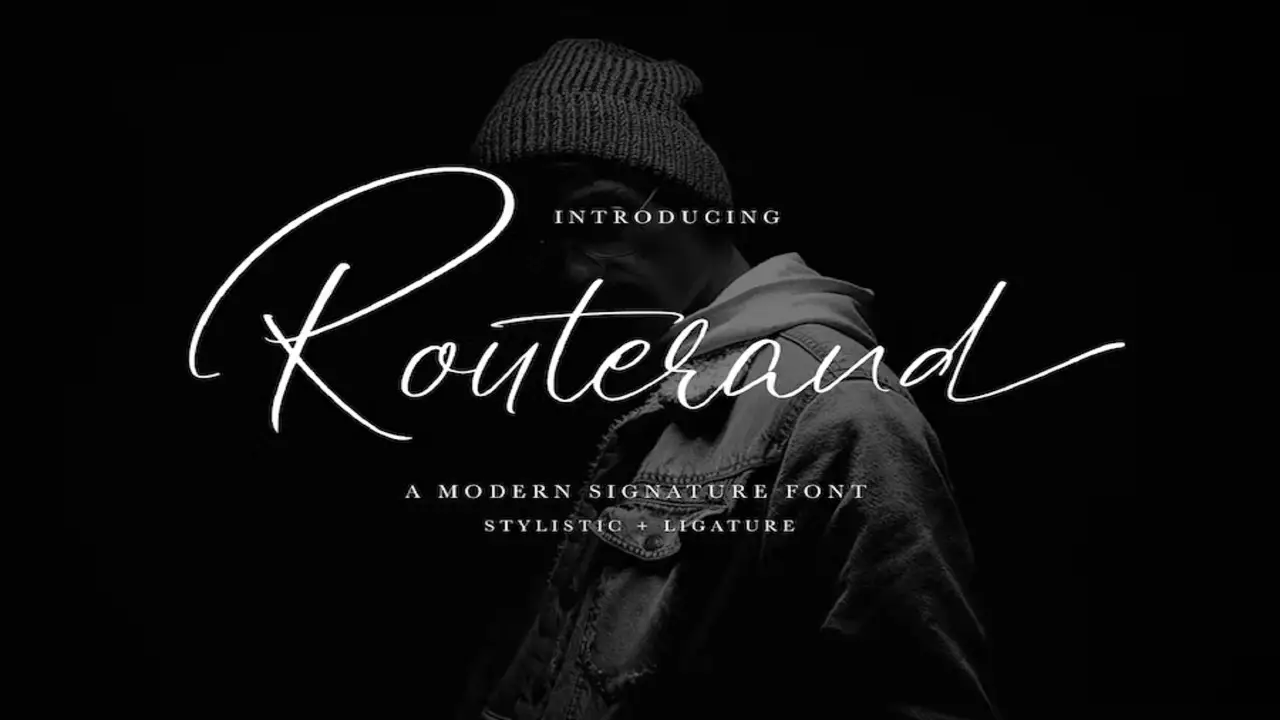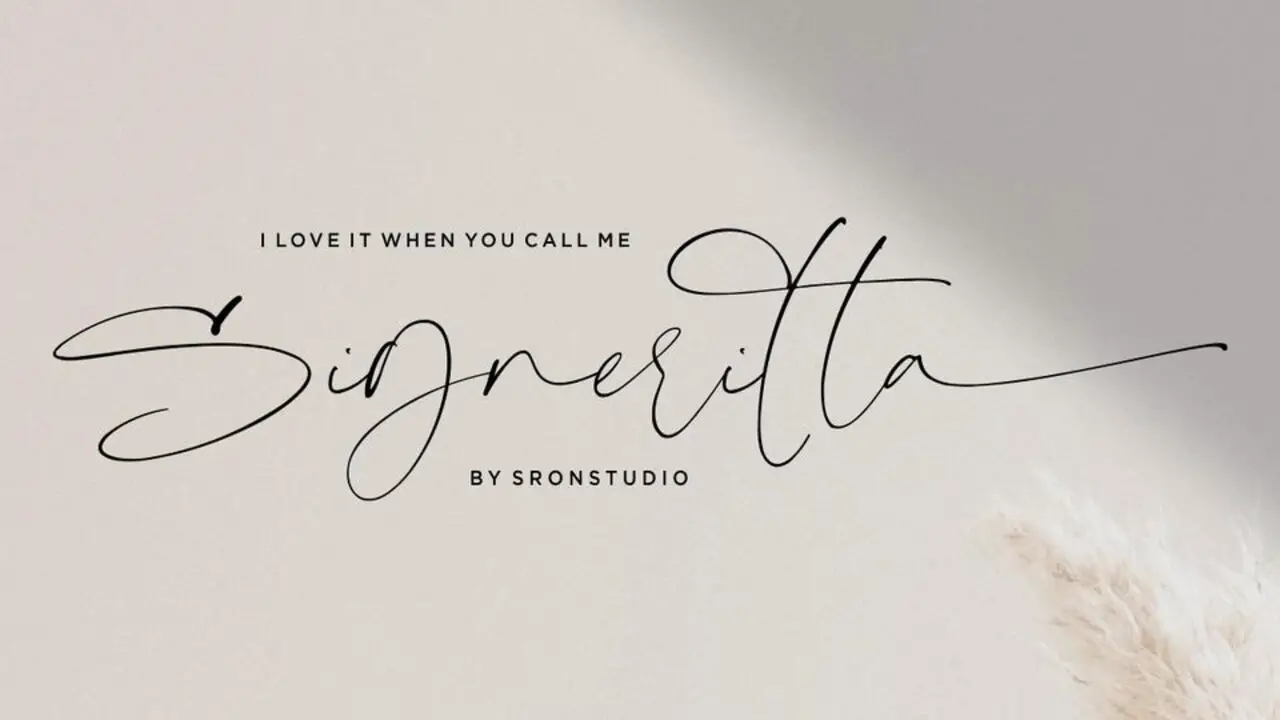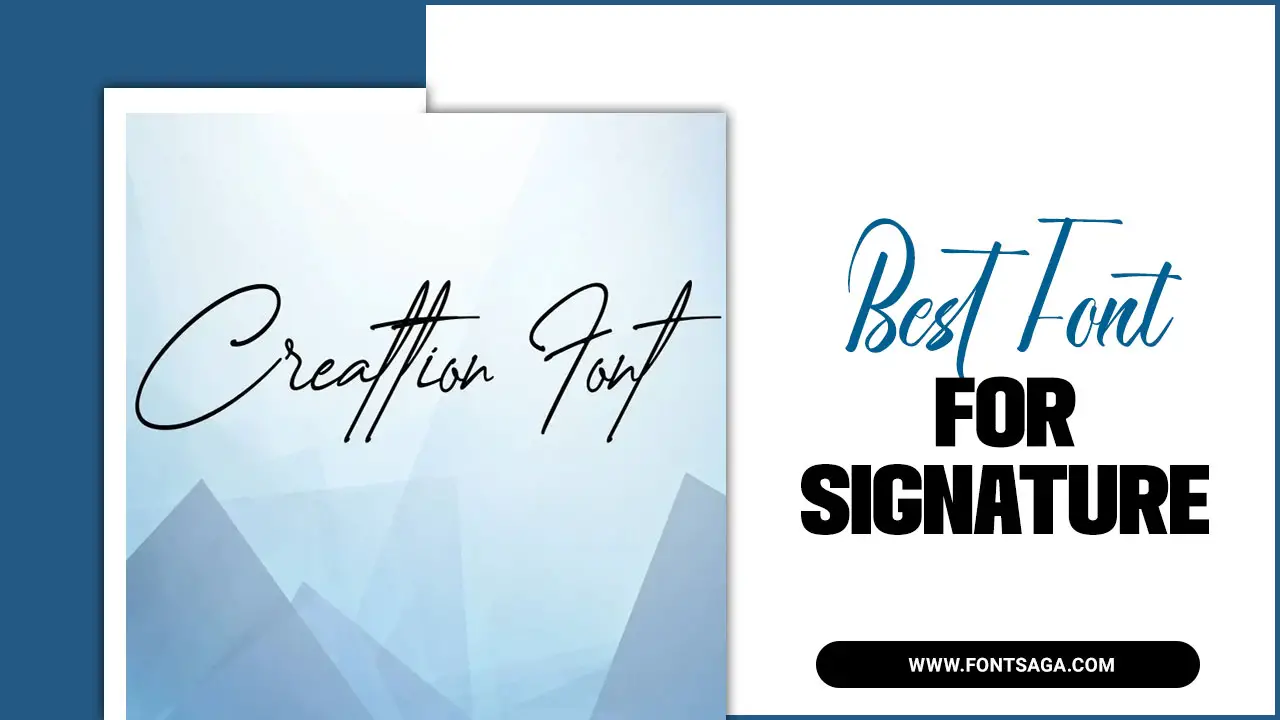
Selecting the perfect font for your signature can be a daunting task. A signature is a unique and personal representation of yourself and your brand, and the font you choose can significantly affect its effectiveness.
A signature is more than just your name – it is an extension of your personality and can convey a sense of professionalism, creativity, and even elegance. With so many fonts, finding the best one that suits your style and brand can be challenging. We will explore and discuss the best font for signature cursive to make your signature stand out.
We will delve into the different types of cursive fonts and their unique features that can give your signature a touch of sophistication and elegance. Whether signing a business document or your artwork, selecting the perfect font can help you establish a professional and consistent brand identity.
The 10 Best Font For Signature Cursive
When choosing the best font for a signature cursive, Signature cursive is a handwriting style often used to sign documents or personalize written communication. Several options can add a touch of elegance and personalization to your signature. Here are 10 fonts that are widely regarded as some of the best for creating a beautiful cursive signature:
1. Routerand
When choosing the best font for signature cursive, Router is a top contender. Known for its elegant and sophisticated design, this font captures the essence of natural handwriting with its smooth lines and fluid strokes. Whether signing an email, creating a logo, or designing wedding invitations, Routerand offers versatility for personal and professional use. Its exceptional legibility ensures that your signature stands out and leaves a lasting impression. If you’re searching for a cursive font that combines elegance and readability, Router should be at the top of your list.
2. Angello
Angello, a favoured font for signature cursive, is renowned for its graceful and flowing design. This script font features gorgeous loops and curves that replicate the natural flow of handwriting. Its elegance and refinement enhance the visual appeal of any signature
3. Sigustil
Known for its elegant and flowing design, Sigustil is a popular font choice for adding a personal touch to your signature. Its smooth and effortless lines make it perfect for creating sophisticated signatures with a natural flow.
With various stylistic alternates and ligatures, you can customize your signature to reflect your style. Whether you’re signing emails, wedding invitations, or business cards, Sigustil is the best font for adding a touch of elegance and sophistication to your signature.
4. Maissiel
Maissiel, one of the finest script fonts for signature cursive, is coveted for its graceful and flowing design. Elegant and timeless, it exudes sophistication in every stroke. This font brings a personal touch to signatures with its natural hand-drawn appearance. Whether you use it for wedding invitations or business cards, Maissiel adds a touch of class. It’s perfect for creating a signature style that captures attention.
5. Biograph
Biograph is a stylish and elegant font that is widely recognized for its ability to create beautiful signature cursive. With its smooth curves and flowing lines, Biograph adds a sophisticated and artistic touch to any design project, including logos, branding materials, and wedding designs.
This versatile font is easy to read and adds a personal touch to your work, giving it a unique and memorable appearance. You can customize Biograph with different weights, styles, and swashes to create a signature style that stands out on various platforms like product packaging, social media posts, and business cards. Its natural flow and flourishes convey elegance and boldness, making it the perfect choice for adding a personal touch to your signature or any other creative project.
6. Midnight
Midnight is a stunning cursive font that exudes elegance, sophistication, and perfect font. With its smooth lines and graceful curves, this script font is the best font for signature -cursive. It is ideal for logo design, wedding invitations, website headers, packaging, and product packaging.
Its timeless look adds a personal touch and elegance to any signature or cursive font. Whether signing formal documents or creating social media posts, Midnight’s natural flow, boldness, and lowercase characters make it the best signature font for a personal touch.
Customize this best cursive font in Microsoft Word or Photoshop by adjusting the size, spacing, and weight of the letters to suit your signature style. With multilingual support, Midnight is the perfect font for signature cursive, watermark, stationery, and personal use.
7. Grahamo
With its elegant and flowing style, Grahamo is a popular signature cursive font that adds a touch of sophistication to any document. This versatile font features smooth curves and graceful strokes, perfect for business documents, personal signatures, and branding materials.
5.How Can I Create A Digital Signature Using A Cursive Font?